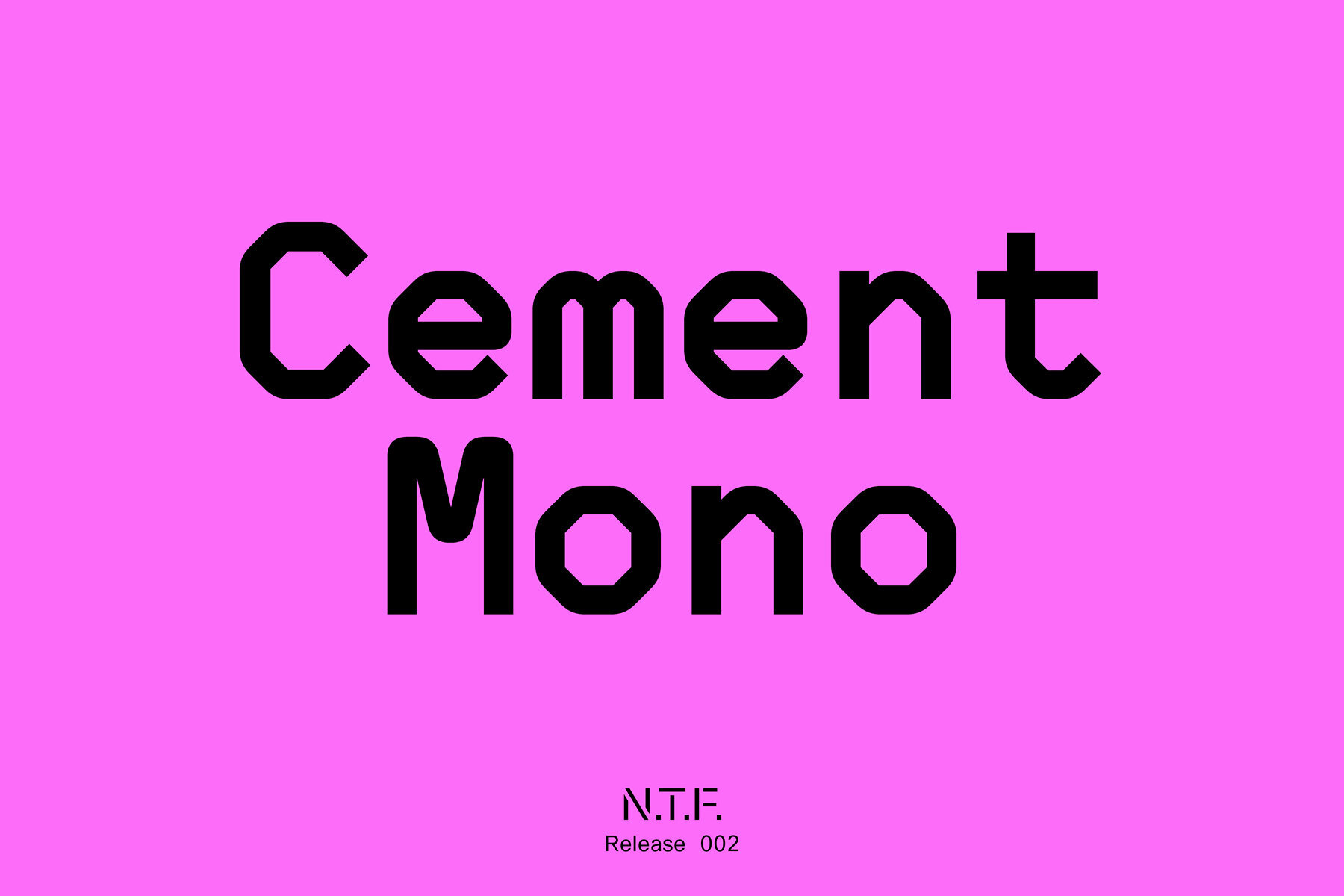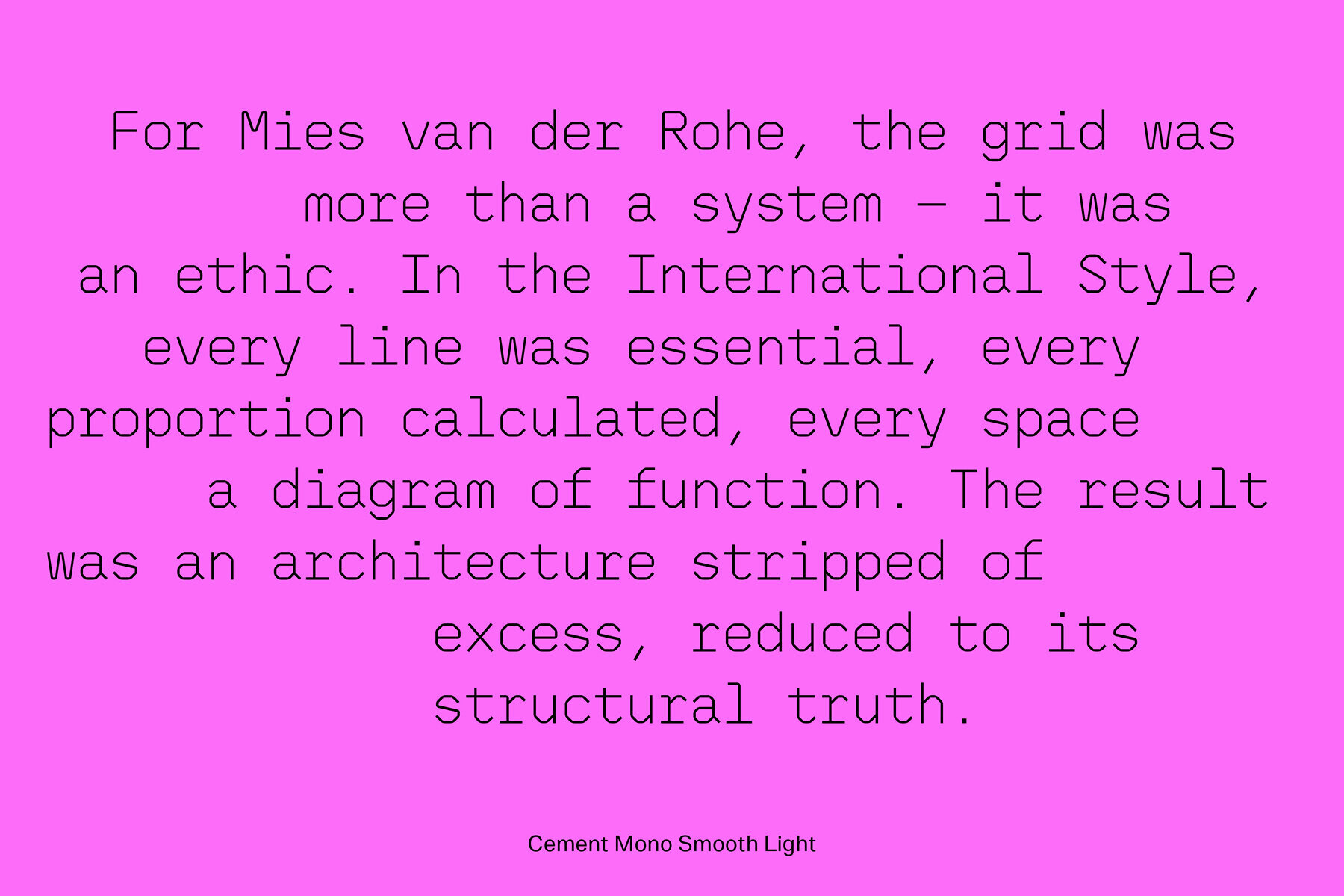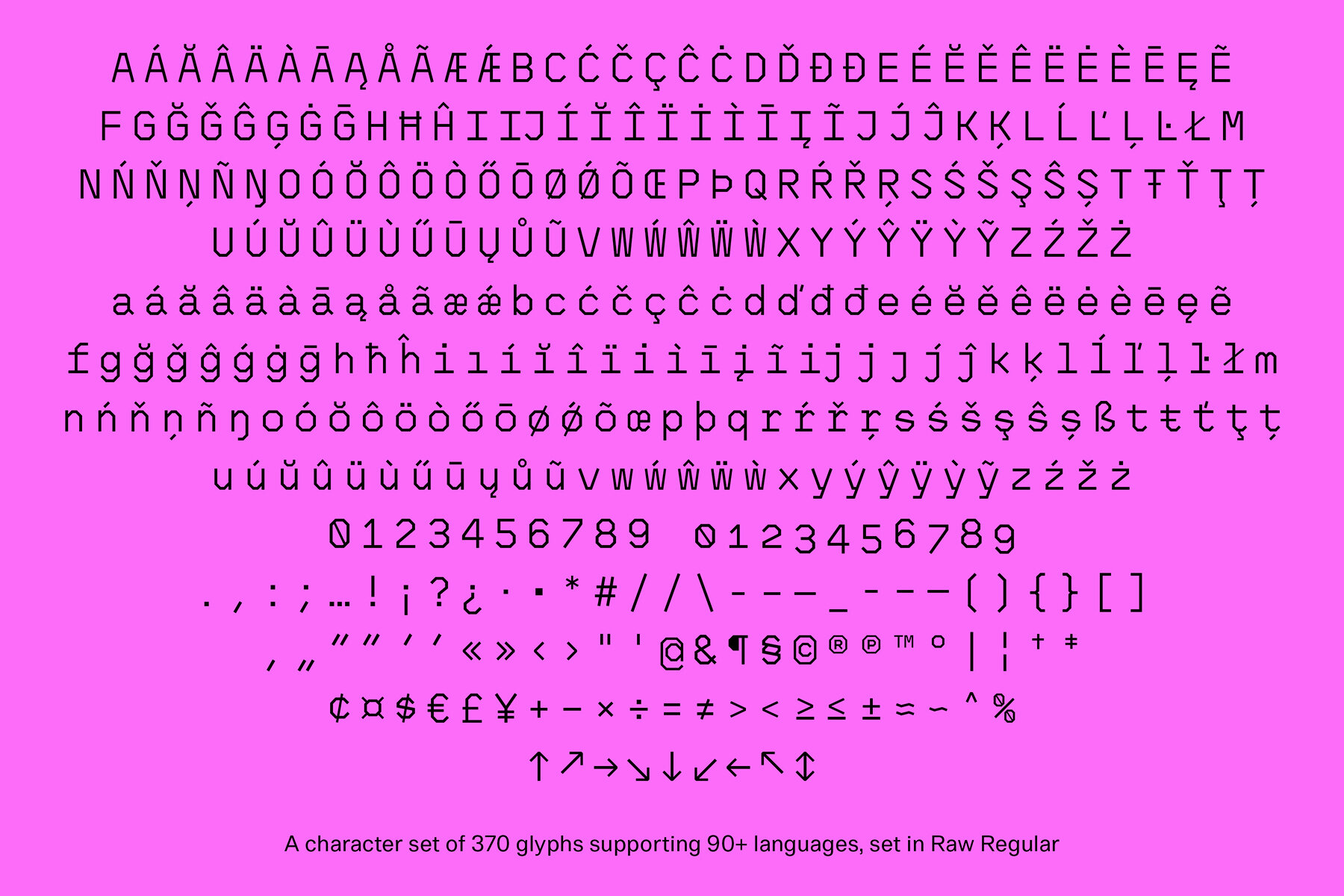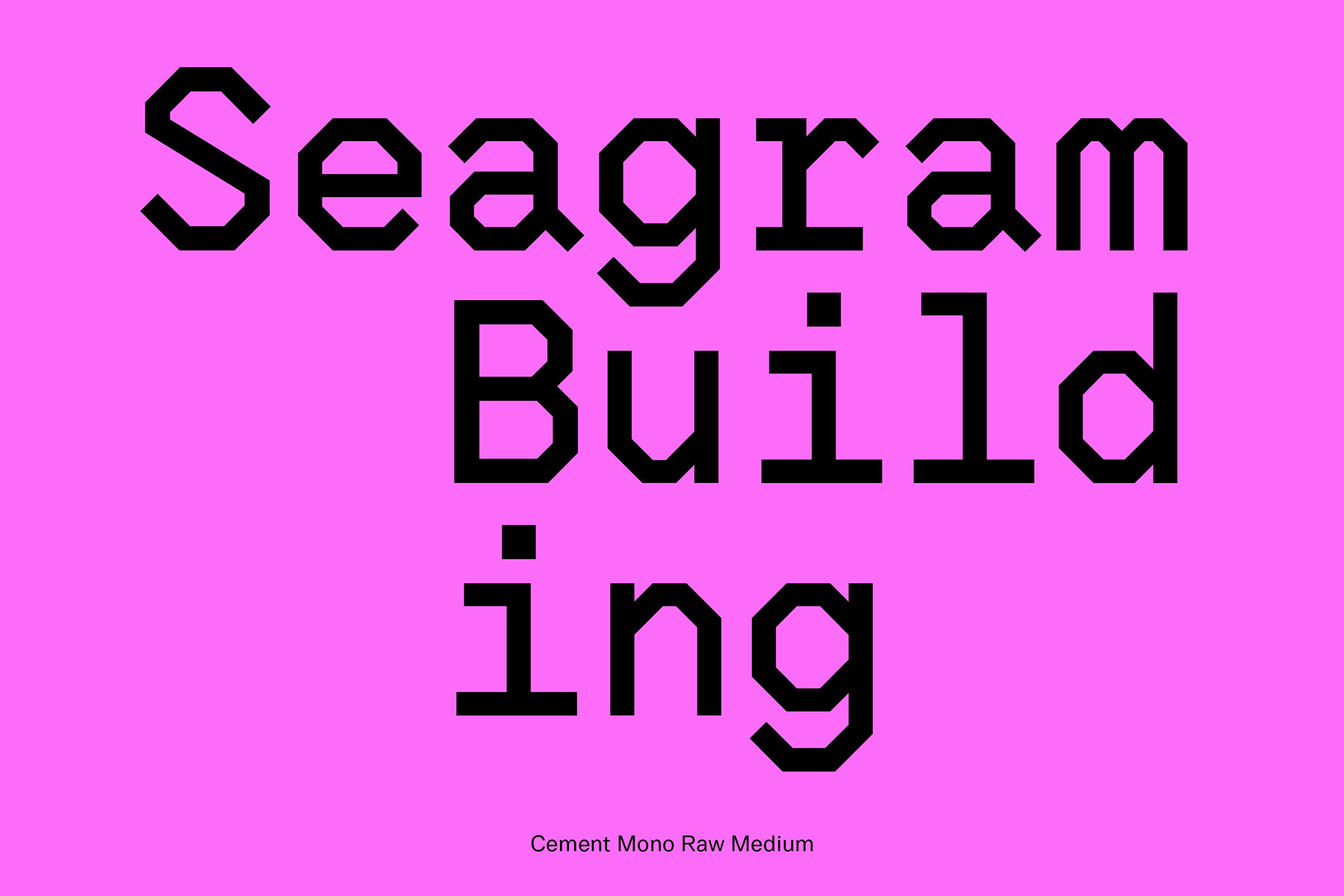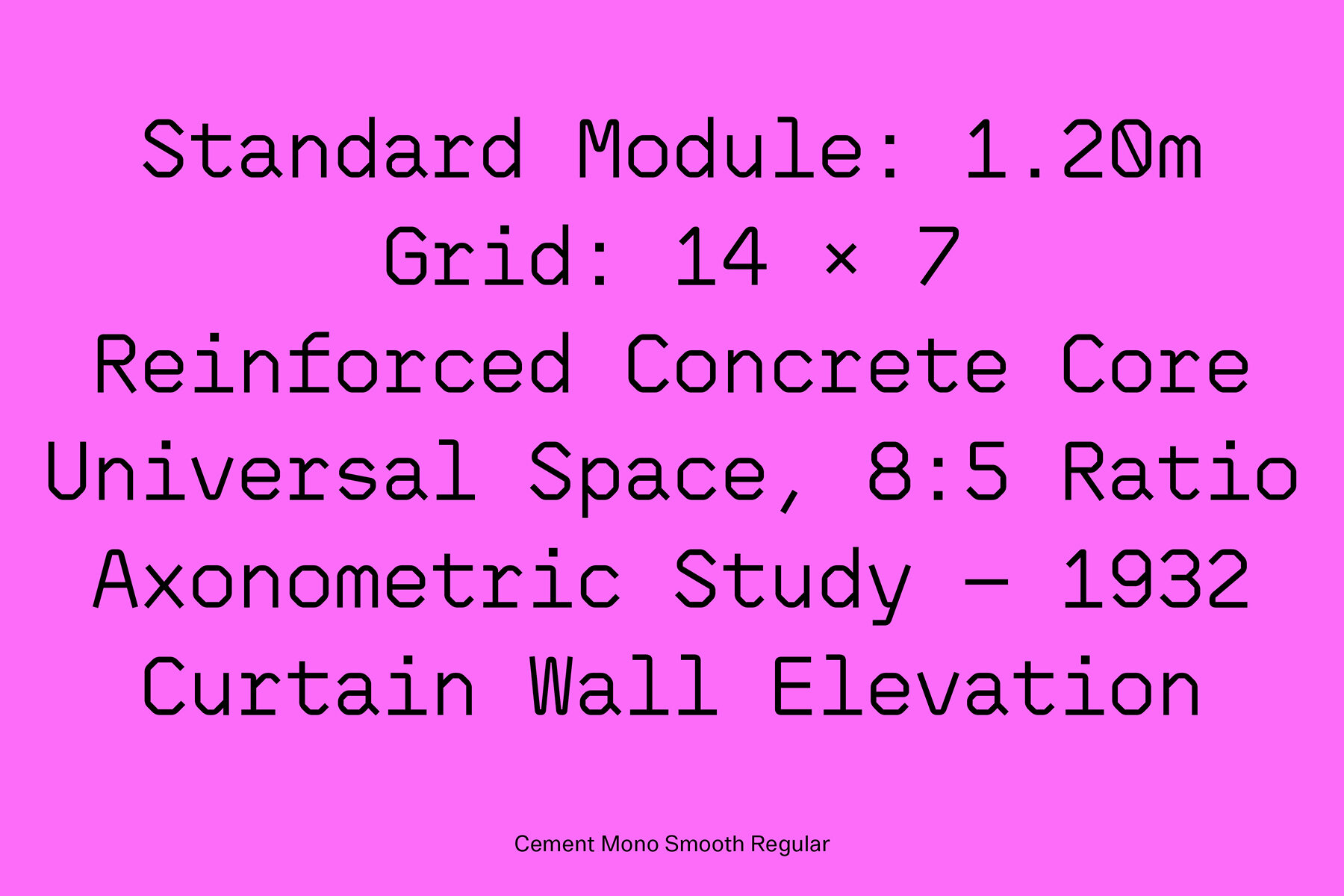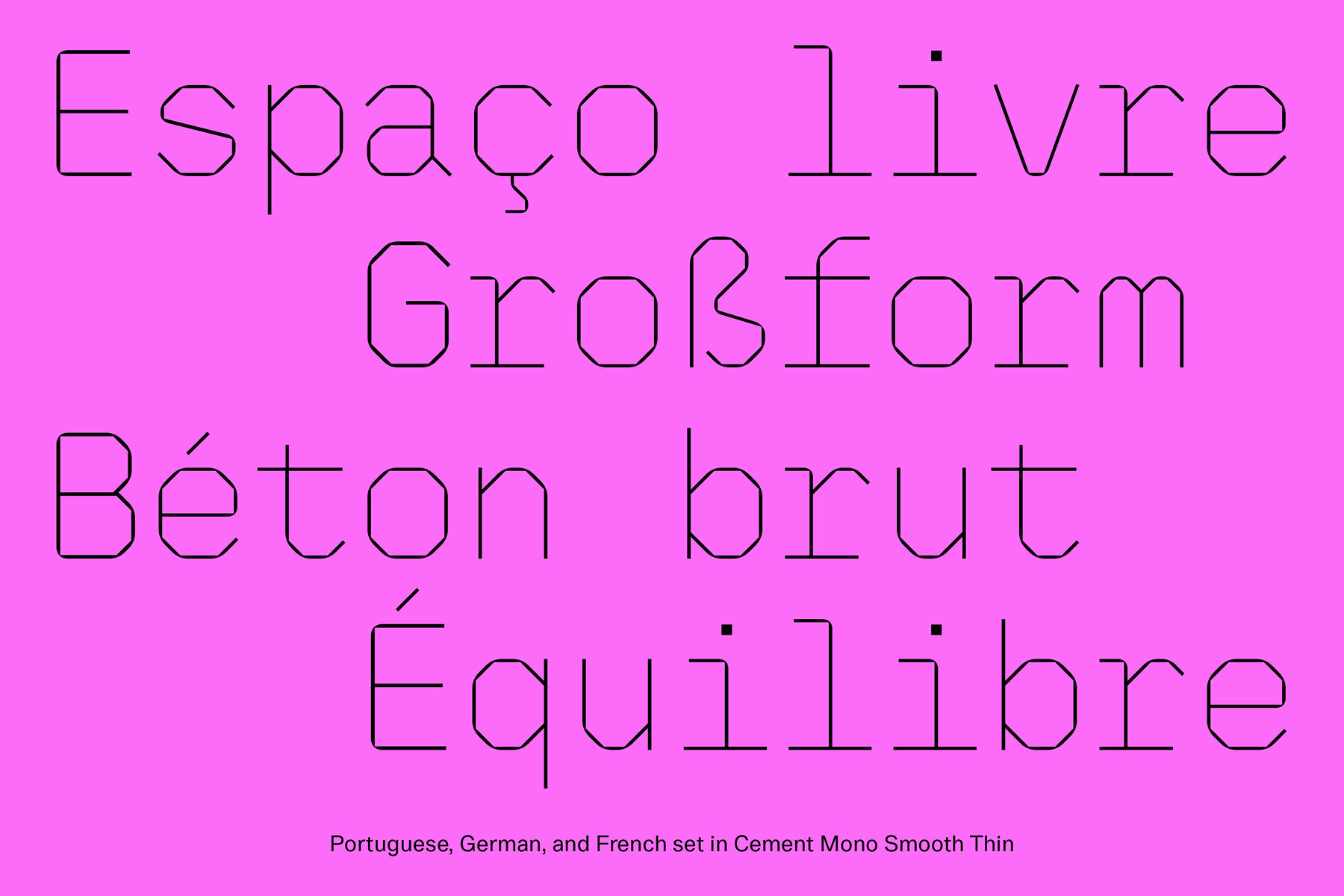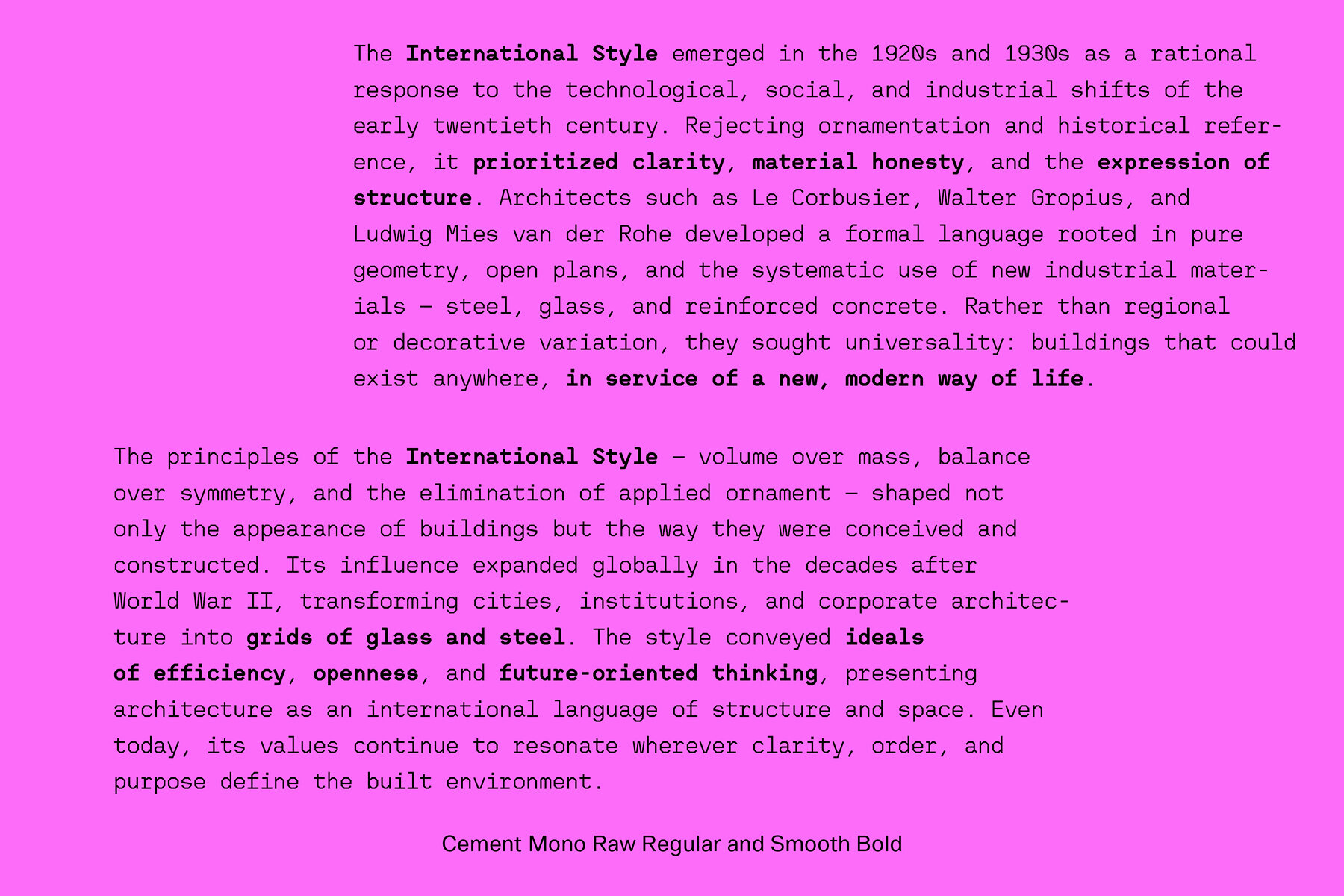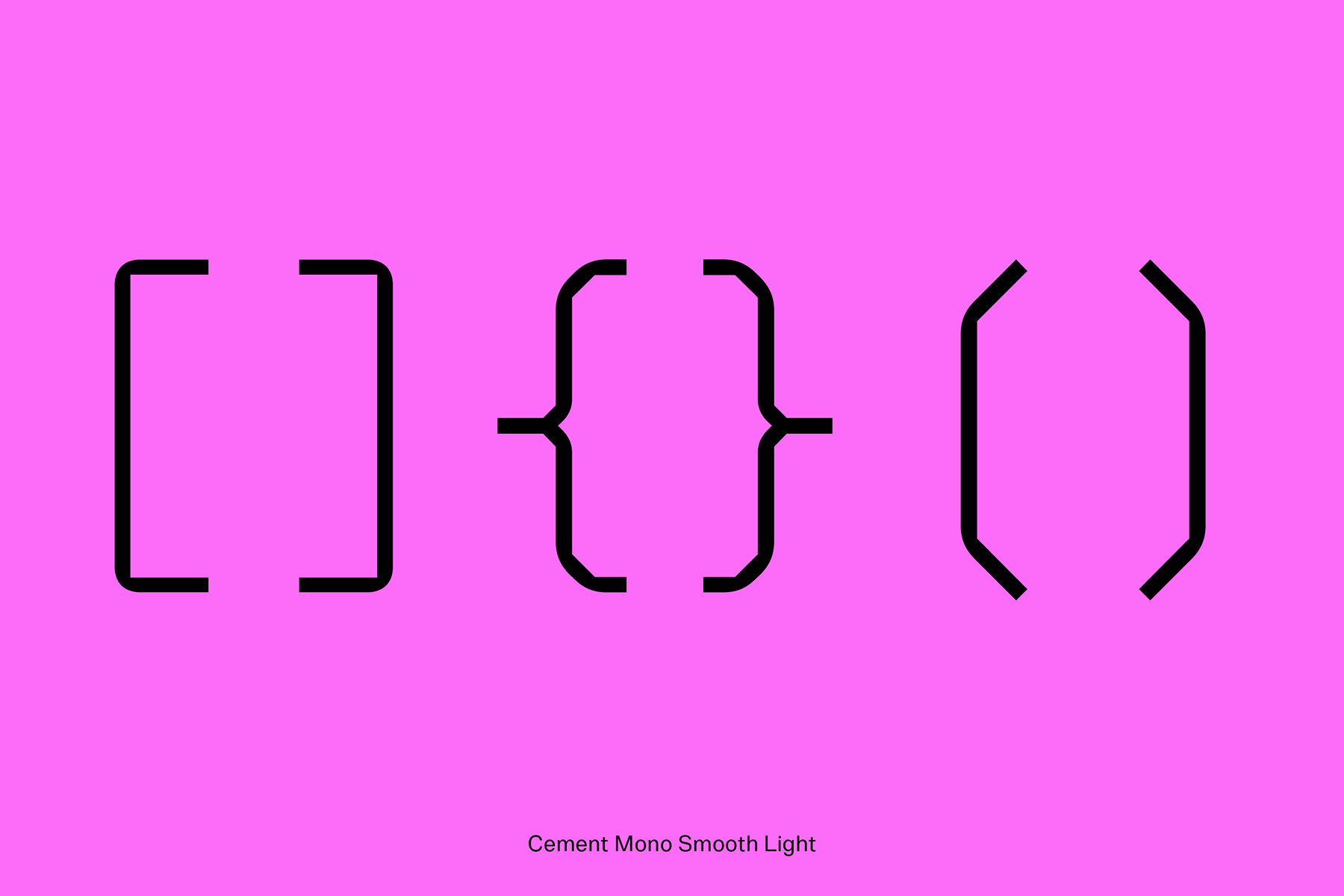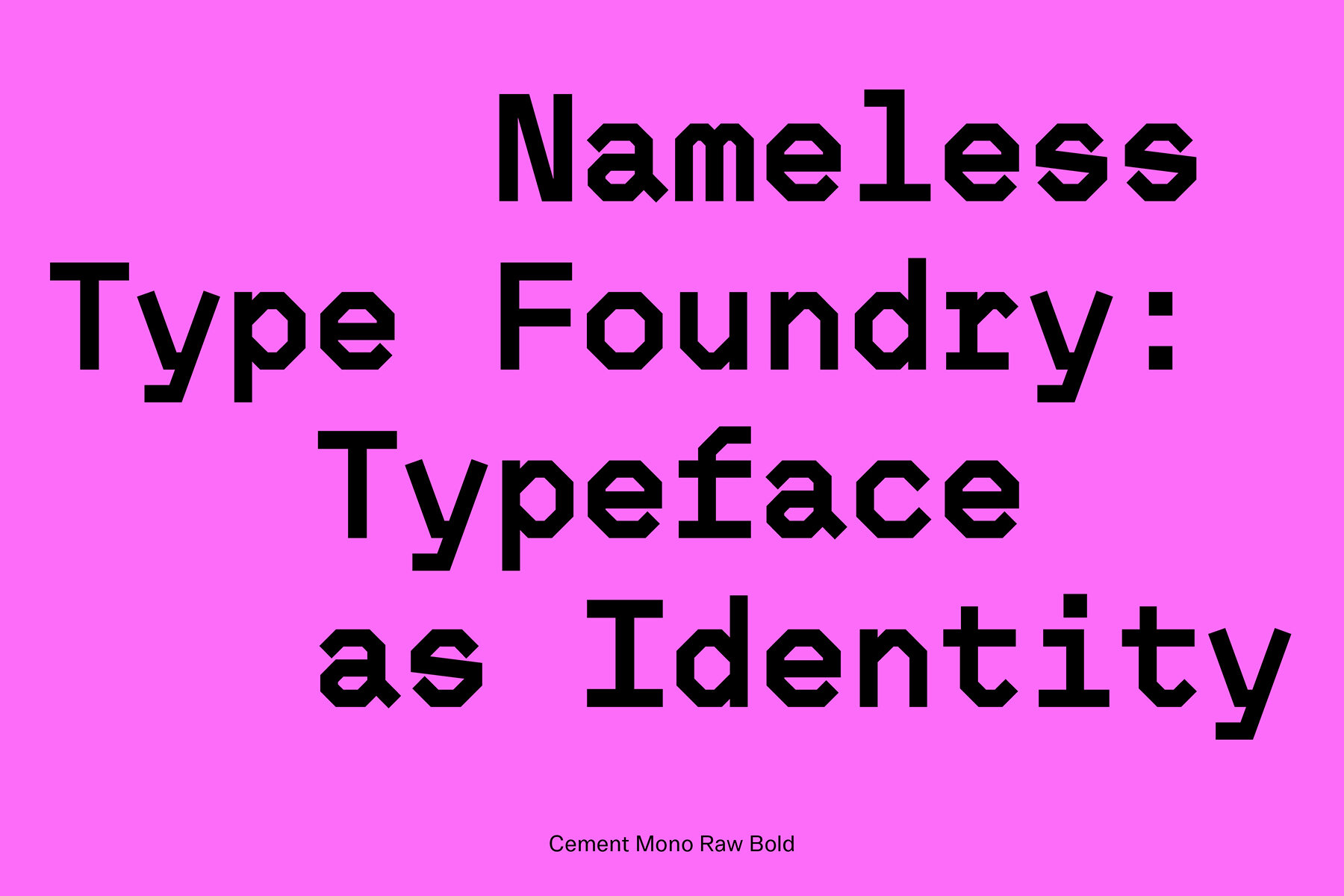
Cement Mono Font
Cement Mono stands out with its modular logic and visual precision, offering a structured typeface perfect for projects demanding clarity and rhythm. With five weights ranging from Thin to Bold, it provides extensive versatility in design. Available in two stylistic sets, Cement Mono caters to diverse aesthetic needs. Choose 'Raw' for sharp-edged corners or 'Smooth' for a softened geometric presence, all while maintaining its consistent grid alignment.Cement Mono: Modular Monospaced Typeface
Identity is built through type. Our fonts embody this belief by offering systems that can align with convention or resist it. Nameless Type Foundry publishes typefaces for creating and controlling identity.